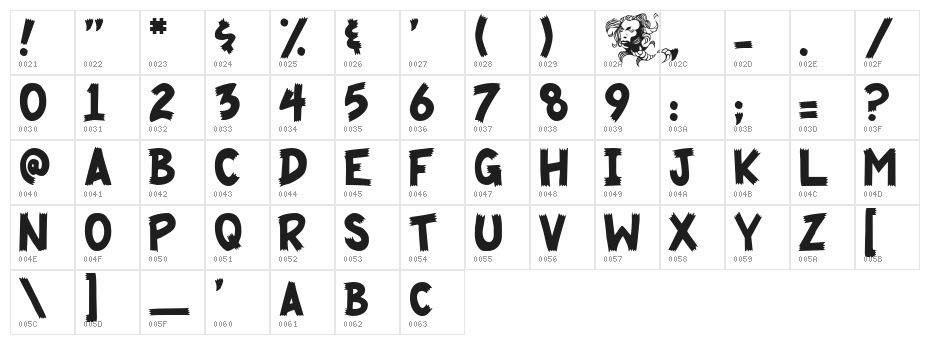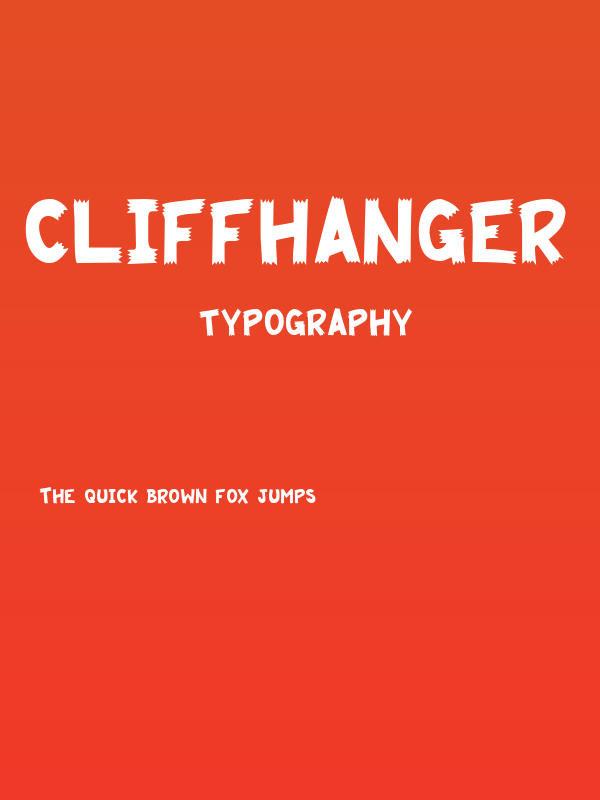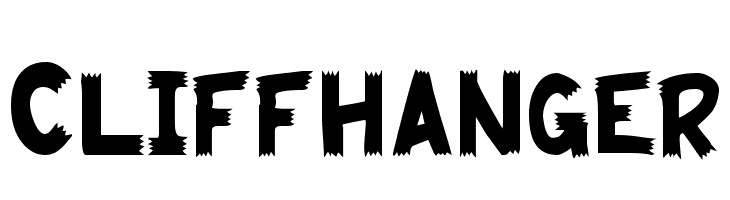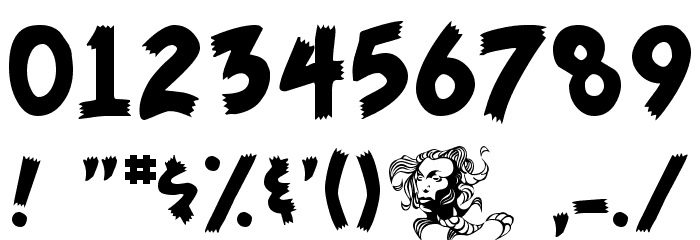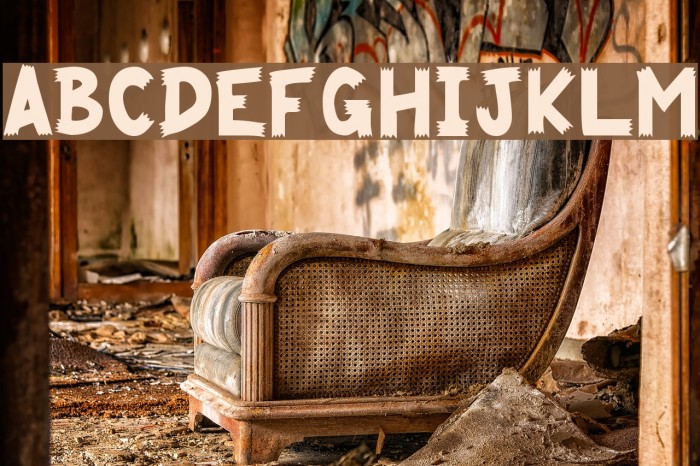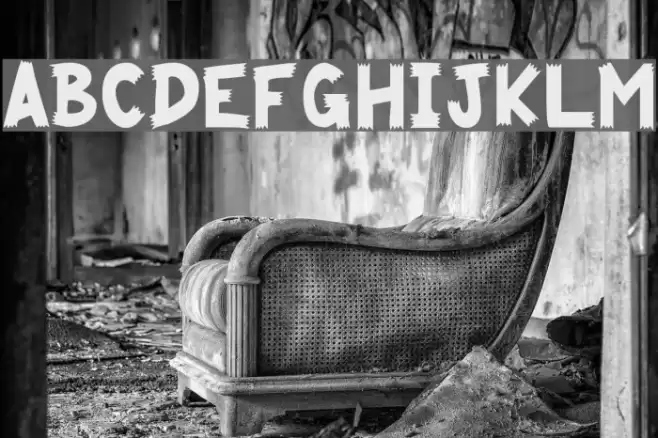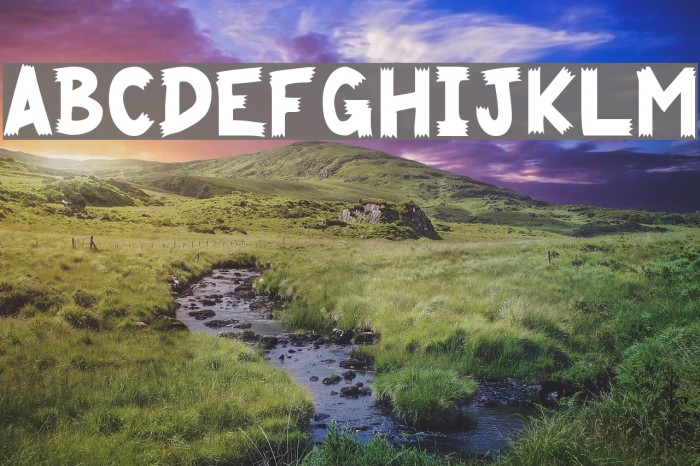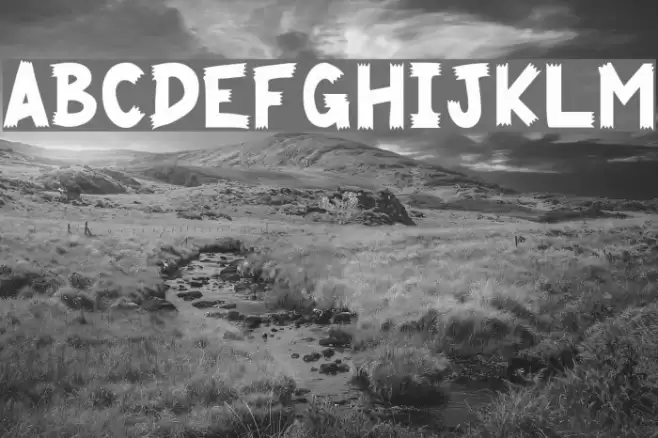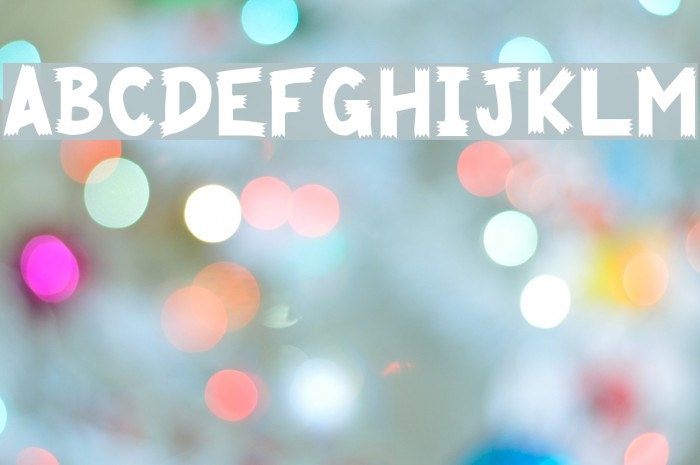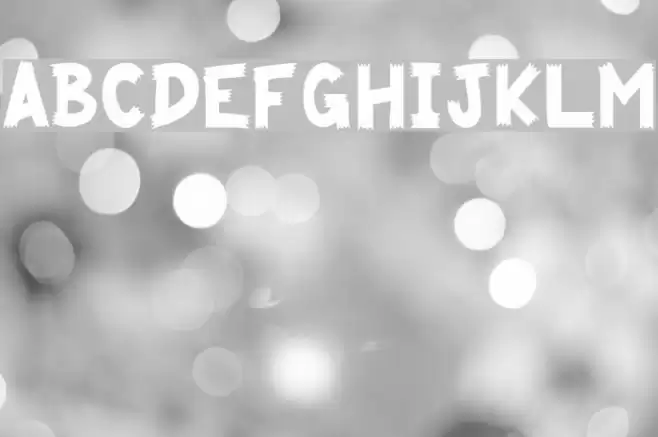
Cliffhanger Font
Cliffhanger Description
This font features a bold and jagged design, reminiscent of a thrilling and adventurous theme. The letters have a rough, edgy appearance with sharp, uneven edges that give a sense of movement and excitement. The uppercase and lowercase letters maintain a consistent style, with a playful yet intense vibe. Numbers and special characters follow the same dynamic pattern, making the font suitable for eye-catching designs. The overall aesthetic is both dramatic and engaging, perfect for projects that require a sense of urgency or excitement.
| Use Case | Headlines, Posters, Logos |
| Proposed Projects | Ideal for movie posters, adventure-themed graphics, comic book titles, and event flyers. |